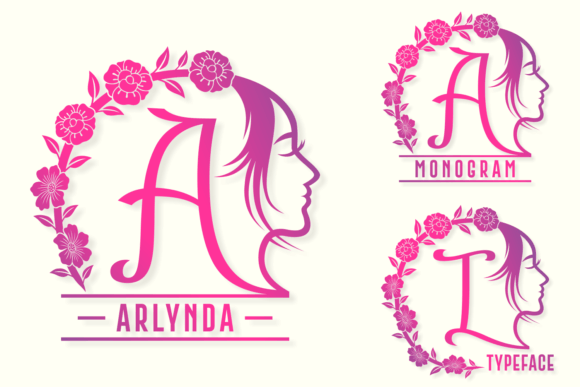
Get Inspired by the Timeless Elegance of Arlynda Font
As a designer, there’s nothing quite like that moment when you stumble upon the perfect font to bring your creative vision to life. It’s like finding a hidden treasure that perfectly complements your style and adds a touch of magic to your work. For me, that moment came when I discovered the beautiful Arlynda Font, featuring elegant flowers that evoke a sense of whimsy and romance.
Arlynda Font is more than just a decorative font – it’s a way to add an authentic touch to your designs. Whether you’re creating stunning wedding invitations, lovely stationery art, eye-catching social media posts, or cute greeting cards, this font is sure to impress. As a valuable addition to any designer’s toolkit, Arlynda Font offers endless possibilities for creative expression and self-expression.
Arlynda Font Key Features
- Unique Characteristics: Elegant script font with a mix of cursive and handwritten styles, ideal for creative and artistic applications
Arlynda Font Review
Overall, I think Arlynda Font has some nice qualities, but it also has some areas where it falls short. Here’s my honest review.
- Beautiful, elegant design that’s perfect for high-end branding and design projects.
- Wide range of weights and styles to choose from, making it versatile for various applications.
- Well-suited for long blocks of text, as it’s highly legible and easy to read.
- May not be the best choice for bold, attention-grabbing headlines, as it’s more understated.
- Some users may find it a bit too ornate or fussy for certain design projects.
- Doesn’t quite have the same level of modernity or edginess that some other fonts offer.
Arlynda Font is a solid, high-quality font that’s perfect for designers who want to create a sophisticated, elegant look. While it may not be the best choice for every project, it’s definitely worth considering for those that require a bit of luxury and refinement.
Arlynda Font: A Practical Application Guide
- Use the font’s unique features, such as ligatures and swashes, to add flair to your design.
Tips for Getting the Most Out of Arlynda Font
Here are some tips for getting the most out of Arlynda Font:
- Use the font’s unique features, such as ligatures and swashes, to add flair to your design.
- Pair the font with other fonts to create a visually appealing contrast.
- Experiment with different font sizes and styles to create a cohesive look.
Arlynda Font is perfect for:
Alternatives to Arlynda Font for Designers
Great Vibes is a modern, elegant script font that is perfect for creating a sophisticated and stylish design. It has a more subtle and refined feel compared to Arlynda Font, making it ideal for use in wedding invitations, branding, and other high-end designs.
Comparison to Arlynda Font: While Arlynda Font has a more dramatic and whimsical feel, Great Vibes is more understated and sophisticated. Great Vibes is better suited for designs where a more elegant and refined touch is needed.
Carolyna Pro is a high-end, luxurious script font that is perfect for creating a sense of opulence and sophistication. It has a more refined and elegant feel compared to Arlynda Font, making it ideal for use in high-end designs, such as luxury branding and invitations.
Comparison to Arlynda Font: While Arlynda Font has a more playful and whimsical feel, Carolyna Pro is more serious and luxurious. Carolyna Pro is better suited for designs where a sense of high-end sophistication is needed.
Alex Brush is a elegant, handwritten script font that is perfect for creating a sense of warmth and personality. It has a more casual and approachable feel compared to Arlynda Font, making it ideal for use in designs where a more personal touch is needed.
Comparison to Arlynda Font: While Arlynda Font has a more dramatic and whimsical feel, Alex Brush is more understated and approachable. Alex Brush is better suited for designs where a sense of warmth and personality is needed.